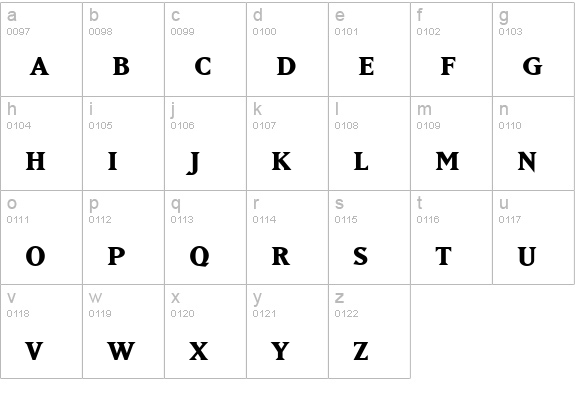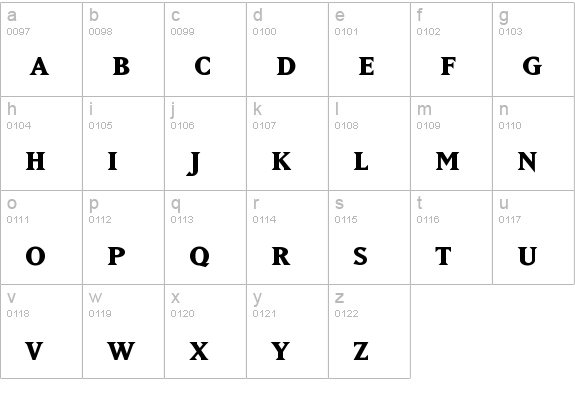
MatrixBoldSmallCaps Bold Font Details
MatrixBoldSmallCaps Bold is a strong, high-contrast variant in the MatrixBoldSmallCaps typeface family \xE2\x80\x94 well suited to headlines, attention-grabbing titles, and strong calls-to-action.
MatrixBoldSmallCaps Bold font is a striking and modern typeface that exudes confidence and sophistication. Its bold and impactful presence makes it perfect for headings, titles, and statements that demand attention. The small caps design adds a touch of uniqueness and flair to any text it graces. Best of all, MatrixBoldSmallCaps Bold font is available for free download at FontsMarket.com. This means you can elevate your designs with this premium font without any cost. Whether you're working on a branding project, poster design, or any creative endeavor, MatrixBoldSmallCaps Bold font is sure to make a lasting impression. Elevate your typography game with this impressive font today!